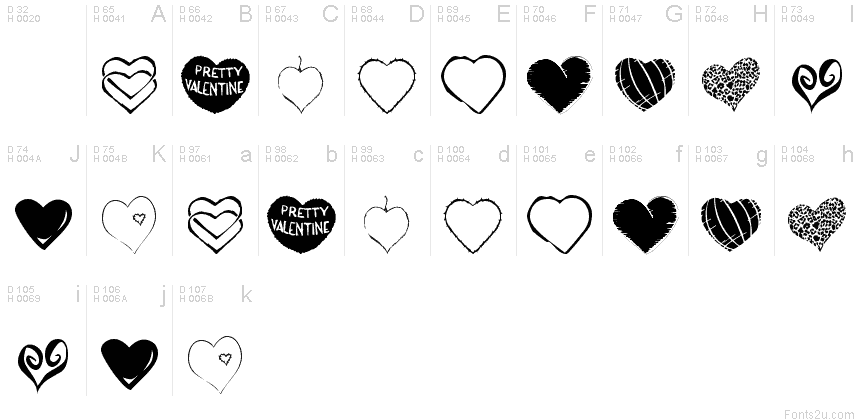
KR Heartfelt
KR Heartfelt font by Kat Rakos is a free decorative dingbat typeface packed with expressive heart icons. From scratchy broken hearts and loose hand-drawn outlines to bold stacked hearts and wild leopard-print fills, each glyph feels playful and a bit imperfect in a charming, homemade way. The lines have a felt-tip, doodled quality that drops straight into craft projects and romantic designs without extra illustration work.
Using KR Heartfelt, you can quickly dress up Valentine cards, classroom worksheets, kids’ crafts, party invitations, social media graphics, stickers, and scrapbooking pages. The variety of heart styles lets you shift from sweet to sassy just by changing the character. This free font works beautifully alongside a simple rounded sans serif; set the text small and let the big heart icons steal the spotlight.